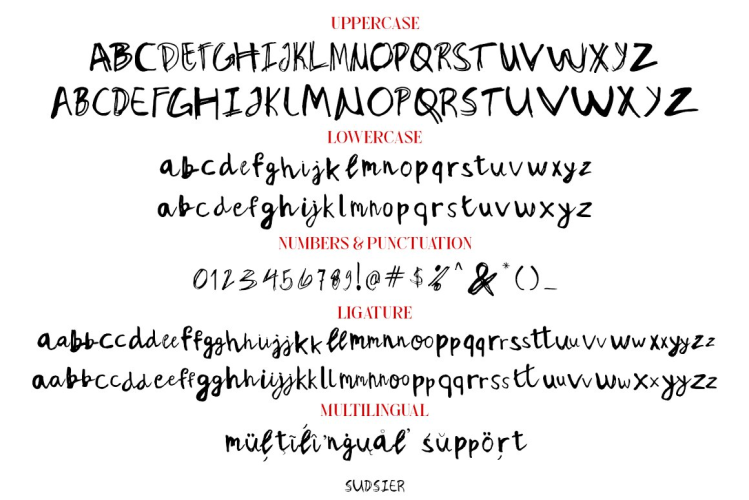
Sudsier – Hand Drawn Font
Sudsier is a note hand drawn font contains 50+ ligatures and comes with two alternative font. Sudsier is great for branding, posters, logos, invitation, writing and headings.
Sudsier – Hand Drawn Font is a Handwriting Fonts font that brings a professional and versatile look to your projects. Sudsier is a note hand drawn font contains 50+ ligatures and comes with two alternative font.